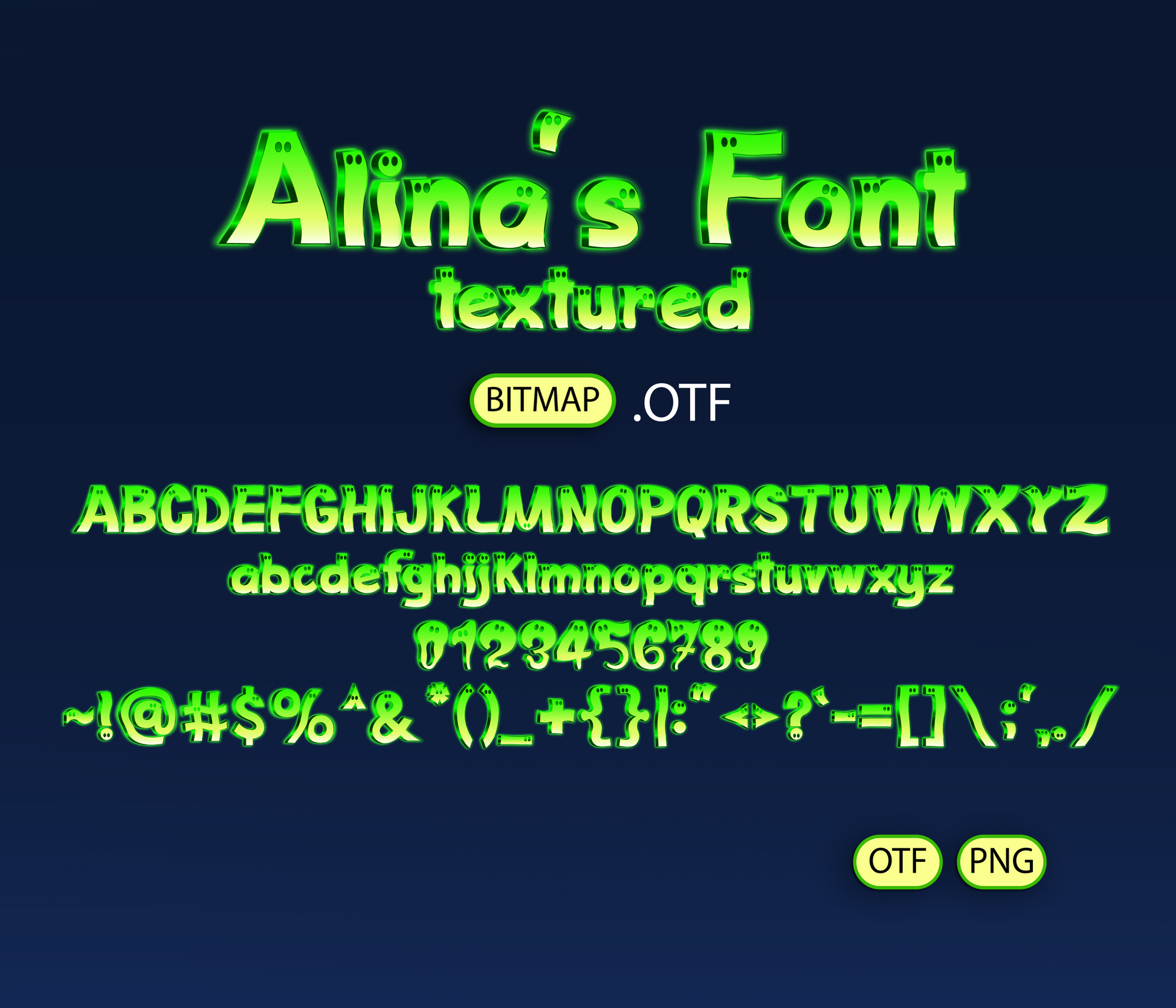
Ghostly Gamer's Delight Font Textured
Ghostly Gamer's Delight Font
Dive into the spooky yet endearing world of a certain green-clad ghost hunter with our Ghostly Gamer's Delight Font. This typography set captures the essence of haunted mansion adventures with a playful twist, perfect for fans, designers, and creatives looking to add a touch of friendly fright to their projects.
Our Ghostly Gamer's Delight Font features whimsical, slightly eerie characters with a hint of retro gaming charm, reflecting the blend of spooky themes and lighthearted gameplay. Ideal for:
1. Console classic fan art and cosplay props
2. Haunted game night invitations and decorations
3. Spooky-cute children's book covers and illustrations
4. Retro gaming website headers and digital graphics
5. Nostalgic T-shirt and merchandise design
6. Social media content for paranormal gaming communities
7. Posters and banners for arcade-themed events
8. Game design elements for projects with a comedic horror vibe
Our font pays homage to the beloved world of a reluctant hero and his spectral adventures, empowering your designs with its charming and slightly spooky spirit. Whether you're crafting fan tributes, designing themed gatherings, or adding a touch of paranormal fun to personal projects, this font communicates the essence of ghost-busting escapades with a quirky, game-inspired twist.
Ready to illuminate the shadows in your creations? This typography set is your virtual ghost-zapping gadget, capturing spirits and infusing designs with a blend of mystery, humor, and a dash of pixelated nostalgia.